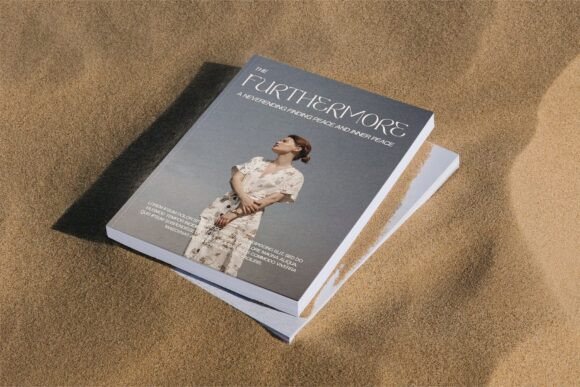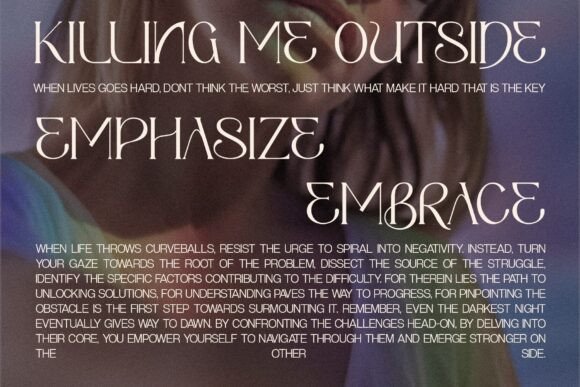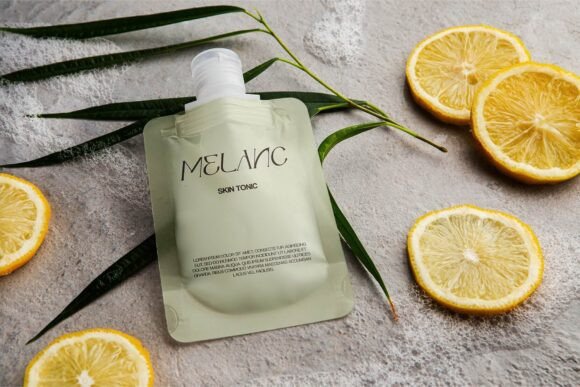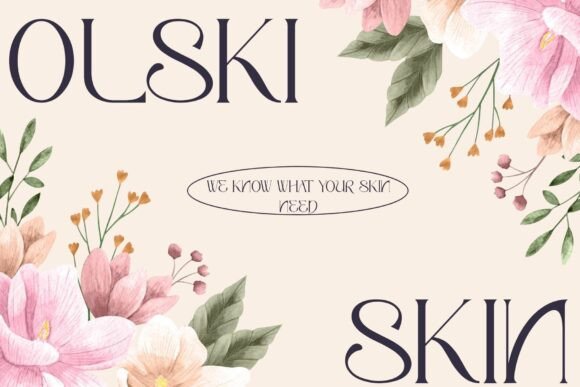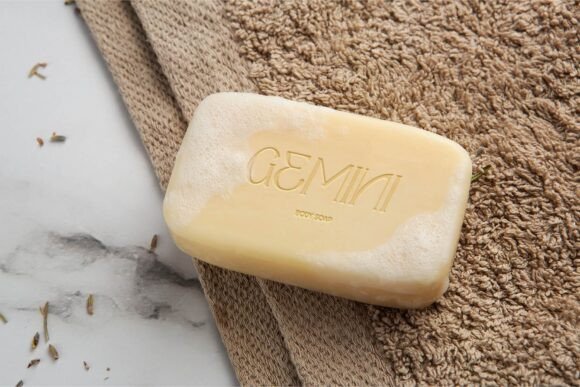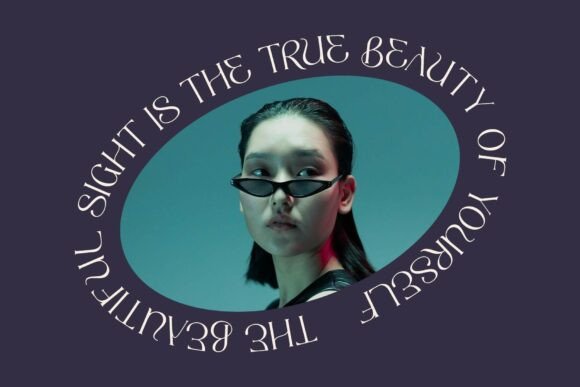
Introducing Anorthic Font: Elevate Your Designs with Timeless Elegance
In the world of typography, a well-crafted font can make all the difference in elevating your design projects from ordinary to extraordinary. If you’re a designer, craft, or simply someone who appreciates the art of typography, you’re in luck. We’re excited to introduce Anorthic Font, a modern serif typeface that embodies the perfect blend of sophistication, elegance, and versatility.
What is Anorthic Font?
Anorthic – Modern Serif Font is a thoughtfully designed typeface that seamlessly merges modernity with classic serif aesthetics. This beautiful font features two versatile styles: Anorthic Regular and Anorthic Italic, making it an excellent choice for a wide range of design applications. Whether you’re working on branding, editorial design, invitations, logos, or any other project that requires a touch of elegance, Anorthic Font is the perfect companion.
Key Features of Anorthic Font
- Timeless Design: Anorthic Font boasts a classic serif design that exudes sophistication and elegance, ensuring your projects stand the test of time.
- Versatile Styles: With two distinct styles – Anorthic Regular and Anorthic Italic – you can add depth and variety to your designs, effortlessly adapting to different contexts and moods.
- Modern Twist: Anorthic Font’s modern serif design ensures that your projects look fresh and contemporary, perfect for designers and craftspeople looking to make a statement.
- Wide Range of Applications: From branding and editorial design to invitations, logos, and more, Anorthic Font’s versatility makes it an excellent choice for various design projects.
Why Choose Anorthic Font?
With so many fonts available, why should you choose Anorthic Font for your next project? Here are a few compelling reasons:
- Elegance and Sophistication: Anorthic Font’s classic serif design and modern twist ensure that your projects exude elegance and sophistication, making it perfect for high-end branding, editorial design, and luxury goods.
- Readability and Legibility: Anorthic Font is designed with readability and legibility in mind, ensuring that your text is easy to read and understand, even at smaller font sizes.
- Flexibility: With two versatile styles, Anorthic Font offers the flexibility to adapt to different design contexts and moods, making it an excellent addition to your font library.
How to Use Anorthic Font in Your Designs
Using Anorthic Font in your designs is straightforward and easy. Here are a few tips to get you started:
- Branding: Use Anorthic Regular for logos, business cards, and other branding materials to establish a strong, elegant identity.
- Editorial Design: Anorthic Font is perfect for editorial design, including magazines, newspapers, and books, where readability and legibility are crucial.
- Invitations: Add a touch of sophistication to your invitations, wedding cards, and other special occasion designs with Anorthic Font’s elegant and refined aesthetic.
In conclusion, Anorthic Font is a beautiful, modern serif typeface that offers a perfect blend of elegance, sophistication, and versatility. With its two versatile styles, Anorthic Regular and Anorthic Italic, this font is suitable for a wide range of design applications, from branding and editorial design to invitations, logos, and more. Whether you’re a designer, craft, or simply someone who appreciates great typography, Anorthic Font is an excellent addition to your font library.